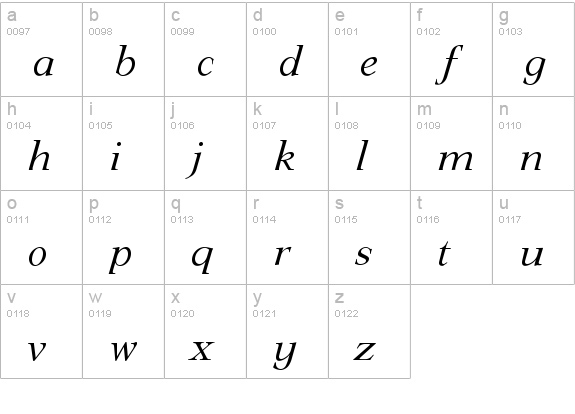
Lingwood-RegularIta is a beautifully crafted font that exudes elegance and sophistication. Its sleek and stylish italic design adds a touch of modernity to any project, making it perfect for a wide range of applications. This versatile font is ideal for creating stunning logos, branding materials, invitations, and more. The best part? Lingwood-RegularIta is completely free to download at FontsMarket.com. With just a few clicks, you can add this stunning font to your collection and take your designs to the next level. Don't miss out on this incredible opportunity to elevate your projects with the timeless charm of Lingwood-RegularIta. Download it today and let your creativity soar!